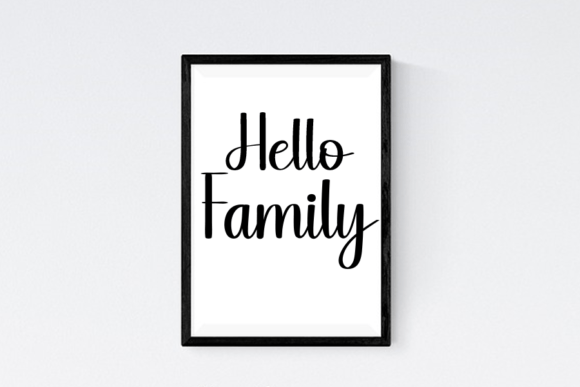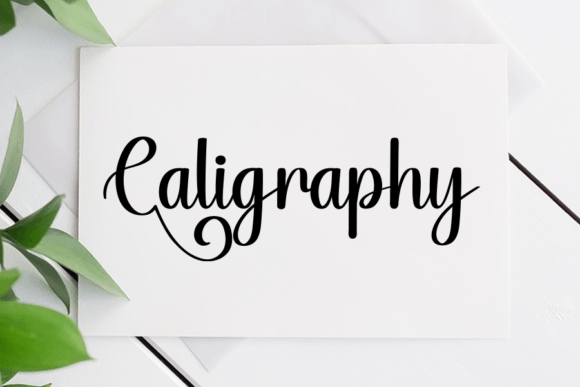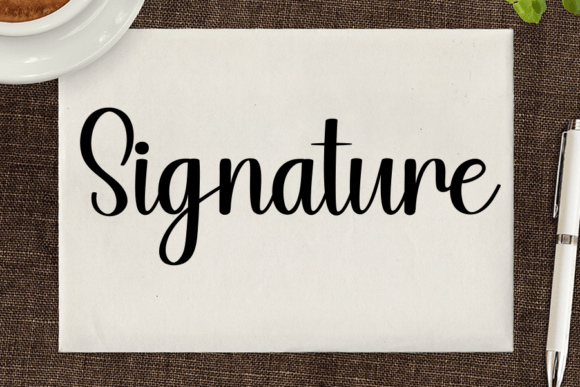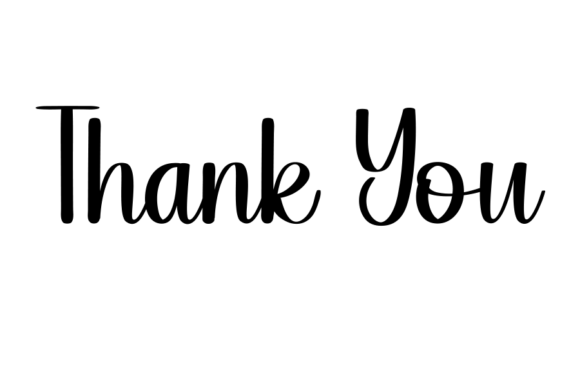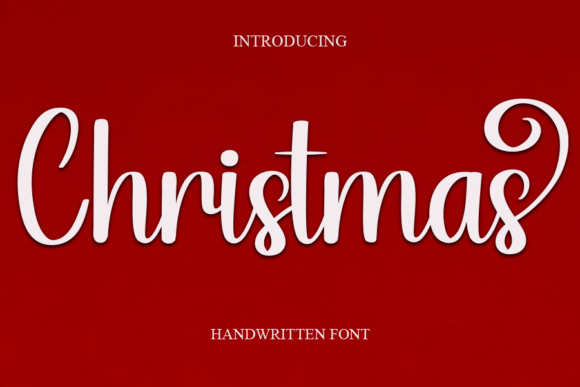
Introducing Christmas Font: A Timeless Classic for Your Holiday Projects
Are you looking for a font that embodies the spirit of Christmas and adds a touch of elegance to your designs? Look no further than the Christmas Font, a stylish handwritten font that exudes a contemporary atmosphere and impeccable form. Inspired by timeless classic calligraphy, this font is perfect for designers and crafters seeking to create stunning holiday-themed projects.
What Makes Christmas Font So Special?
Christmas Font is a beautifully crafted font that boasts a balanced and varied design, making it ideal for enhancing the beauty of your projects. With its PUA encoding, you can easily access all the amazing glyphs and ligatures, allowing you to create unique and visually appealing designs. Whether you’re working on holiday cards, invitations, or festive decorations, this font is sure to impress.
Key Features of Christmas Font
• Stylish Handwritten Design: Christmas Font features a stylish handwritten design that adds a personal touch to your projects.
• Contemporary Atmosphere: With its modern and sleek design, this font is perfect for creating contemporary holiday-themed projects.
• Impeccable Form: The font’s impeccable form ensures that your designs look polished and professional.
• PUA Encoded: Christmas Font is PUA encoded, making it easy to access all the glyphs and ligatures.
• Balanced and Varied: The font’s balanced and varied design ensures that your projects look visually appealing and engaging.
Christmas Font is a versatile font that can be used by designers and crafters for a wide range of projects, including:
• Holiday Cards and Invitations: Create stunning holiday cards and invitations that showcase your creativity and style.
• Festive Decorations: Use Christmas Font to create festive decorations, such as garlands, banners, and signs.
• Social Media Graphics: Add a touch of elegance to your social media graphics, such as Facebook posts and Instagram stories.
• Digital Art and Illustrations: Use Christmas Font to add a personal touch to your digital art and illustrations.
Tips for Using Christmas Font
To get the most out of Christmas Font, here are some tips to keep in mind:
• Experiment with Different Sizes and Colors: Don’t be afraid to experiment with different sizes and colors to find the perfect combination for your project.
• Use it with Other Fonts: Christmas Font can be paired with other fonts to create a unique and visually appealing design.
• Pay Attention to Kerning and Spacing: Make sure to adjust the kerning and spacing to ensure that your text looks balanced and visually appealing.
Christmas Font is a timeless classic that adds a touch of elegance and sophistication to any project. With its stylish handwritten design, contemporary atmosphere, and impeccable form, this font is perfect for designers and crafters seeking to create stunning holiday-themed projects. Whether you’re working on holiday cards, invitations, or festive decorations, Christmas Font is sure to impress. So why wait? Download Christmas Font today and start creating your own unique holiday designs!